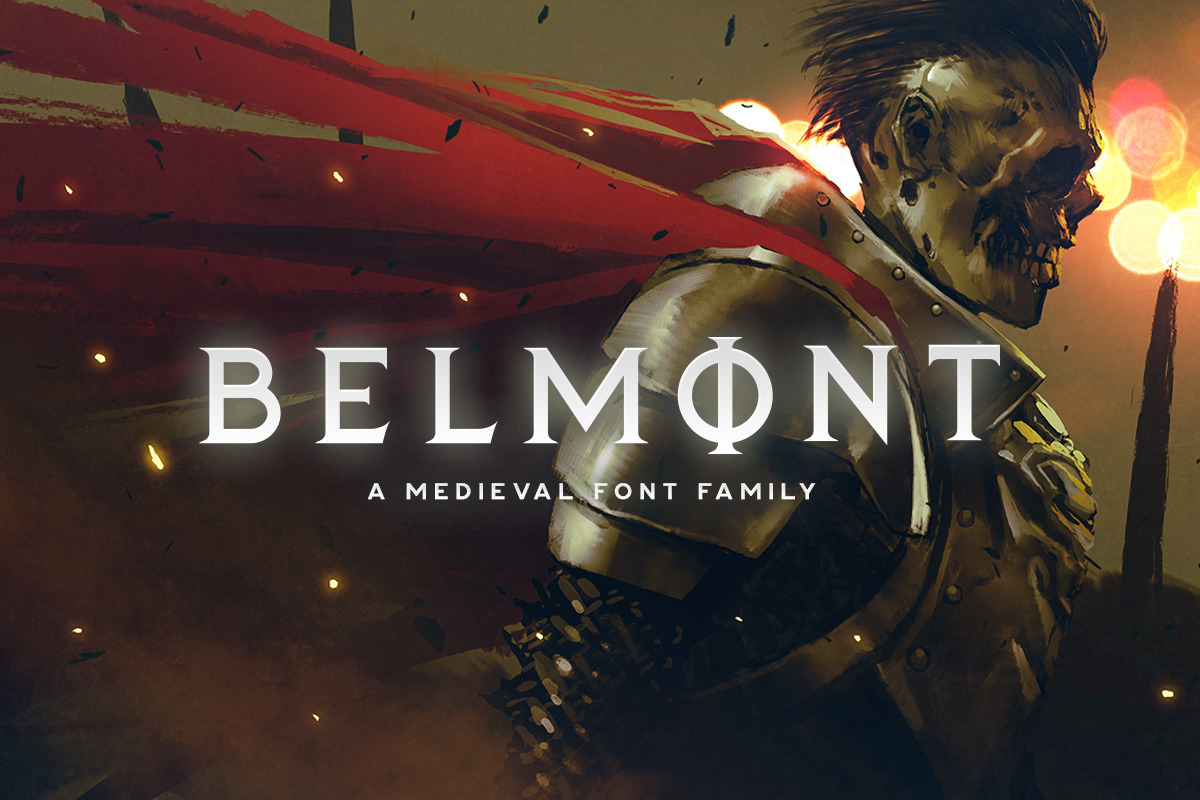
Belmont Typeface
Belmont is a medieval font family with three distinct styles. It includes uppercase multilingual letters, alternate letters, numbers and punctuation.